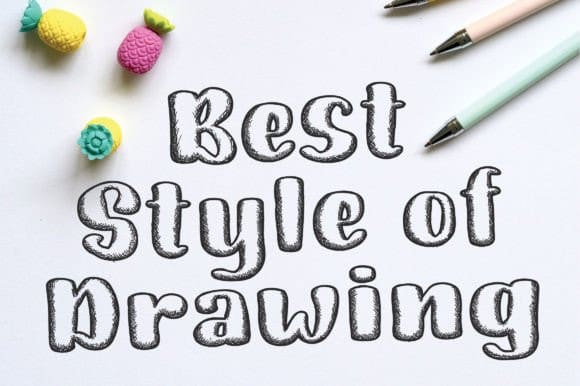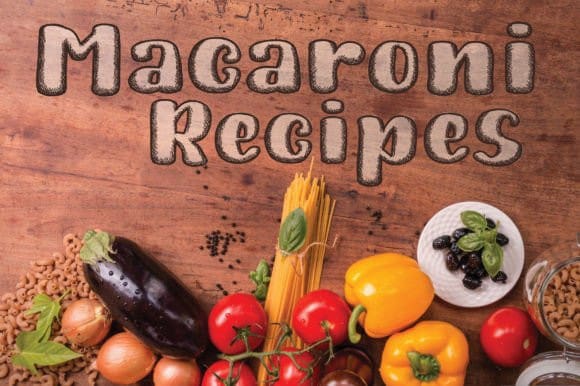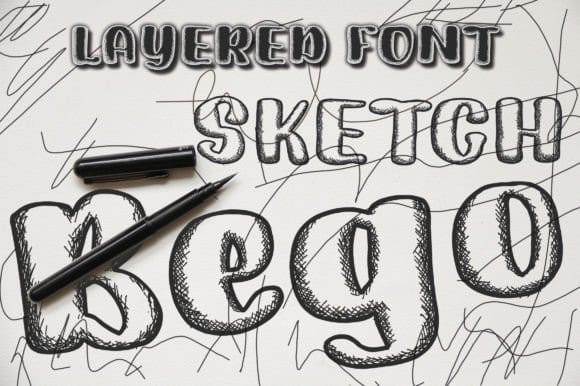
Sketch Bego Font
Sketch Bego Font is a fun and playful display font that combines hand-drawn elements with bold, thick strokes. Its unique character shapes and irregular edges give a quirky, playful feel to any design. Perfect for titles, headlines, and branding projects, Sketch Bego is sure to add a touch of personality and charm to any project.